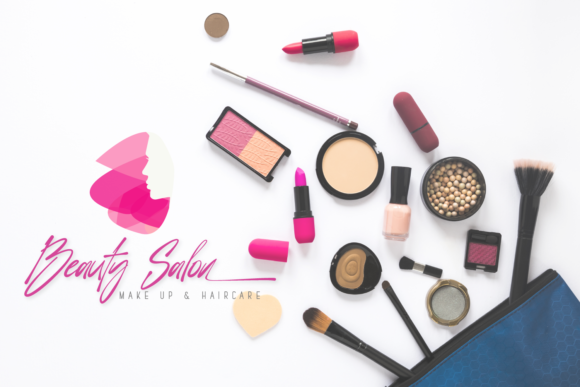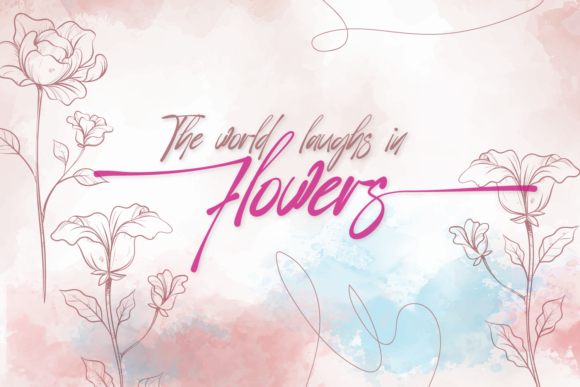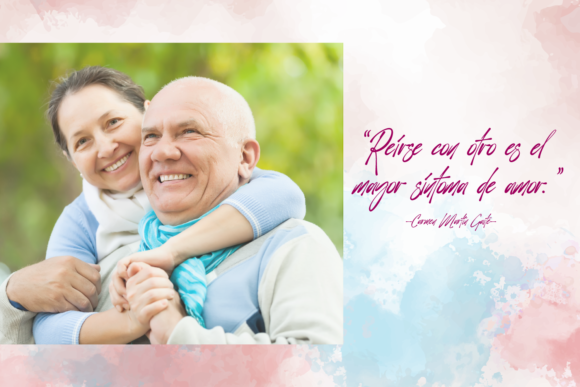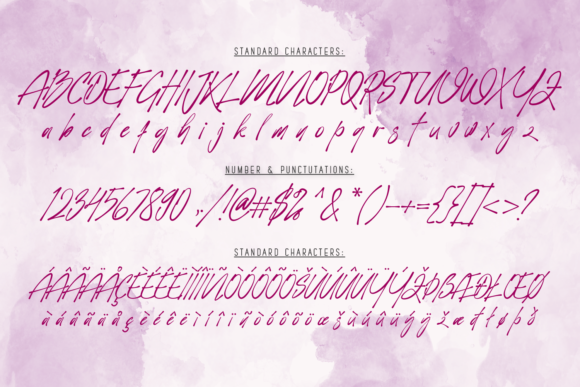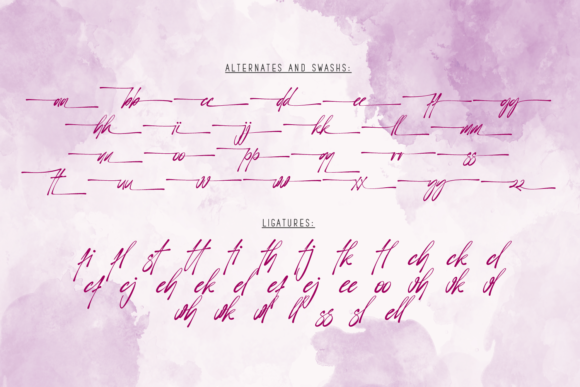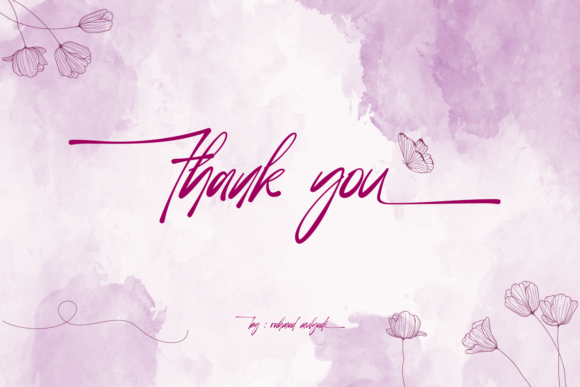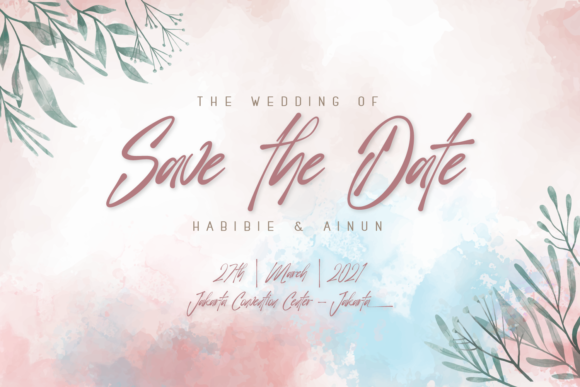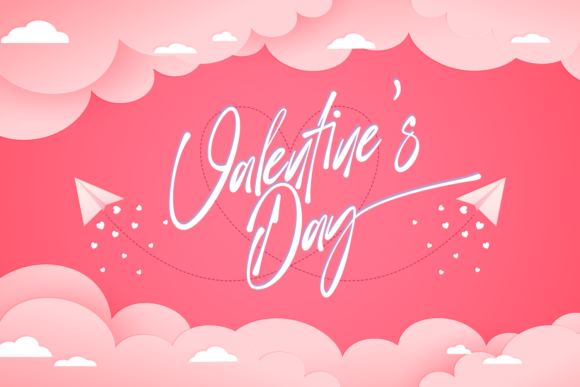
Vorticella Font
About Vorticella Font
Vorticella is a captivating script font that exudes elegance and sophistication. Its cursive and polished style makes it a versatile choice for various design applications, from greeting cards to headlines. This fashionable font is guaranteed to add a charming and refined touch to your next project, elevating it to new heights of visual appeal.
With its graceful and flowing letterforms, Vorticella brings a sense of beauty and sophistication to any design. The smooth and connected strokes create a seamless and harmonious look, making it ideal for projects that require a touch of elegance and sophistication. Whether you’re designing wedding invitations, event posters, or editorial headlines, Vorticella will make your text stand out with its polished and refined appearance.
The wide spectrum of applications for Vorticella is a testament to its versatility. Its timeless and classic style allows it to be used in both formal and casual contexts, giving you the flexibility to adapt it to different design projects. From elegant branding and packaging to stylish social media graphics and website headers, Vorticella adds a touch of charm and sophistication that captivates the audience.
One of the key strengths of Vorticella is its ability to convey emotions and create a personalized feel. The intricate loops and flourishes in the letterforms add a sense of handcrafted artistry, making each word feel unique and special. This font allows you to infuse your projects with a touch of personality and create a memorable impression on your audience.
Whether you’re a professional designer or a creative enthusiast, Vorticella offers a seamless and enjoyable typographic experience. Its well-designed characters and ligatures ensure smooth and pleasing letter connections, resulting in a polished and cohesive look. Additionally, the font’s extensive language support allows you to reach a global audience and effectively communicate your message.
In conclusion, Vorticella is a cursive and polished script font that adds a charming and refined feel to any design project. Its versatile nature allows it to be used in a wide spectrum of applications, from greeting cards to headlines. With its elegance, sophistication, and ability to convey emotions, Vorticella is a valuable asset for designers looking to create captivating and memorable designs.